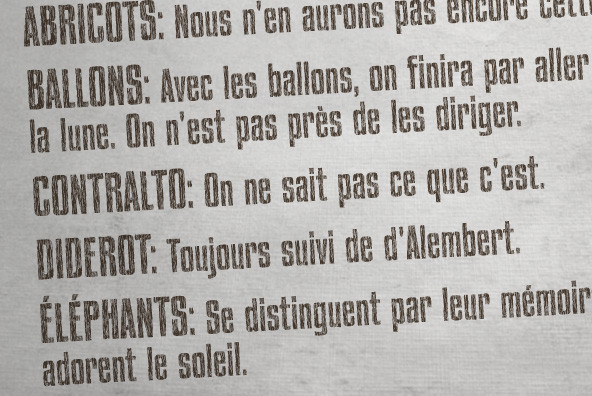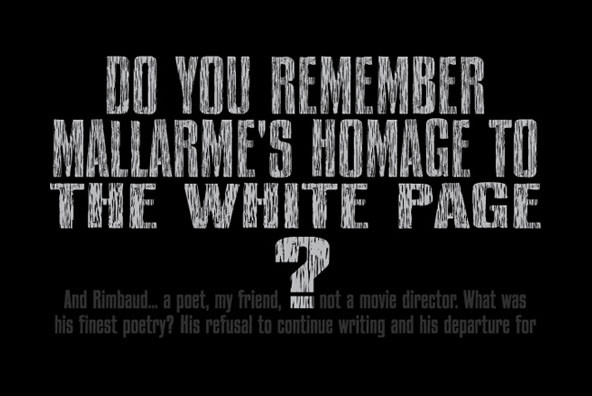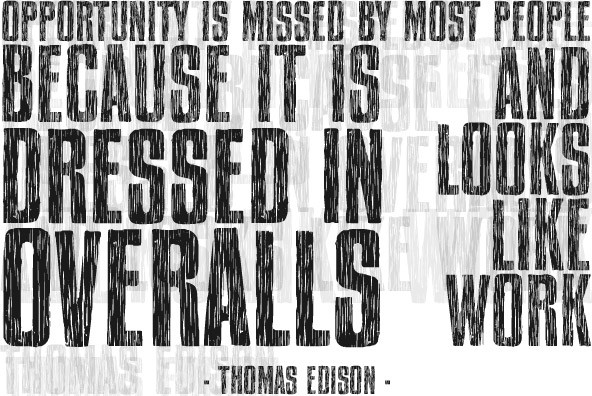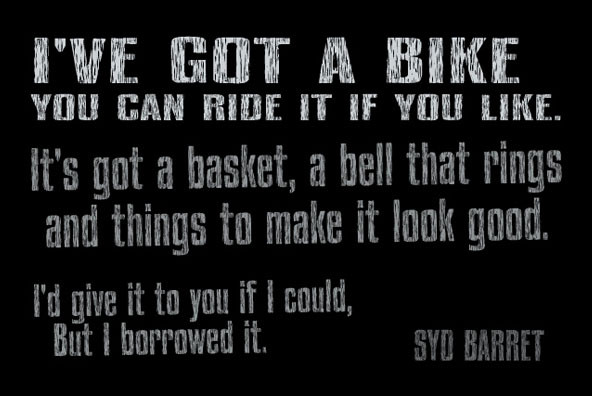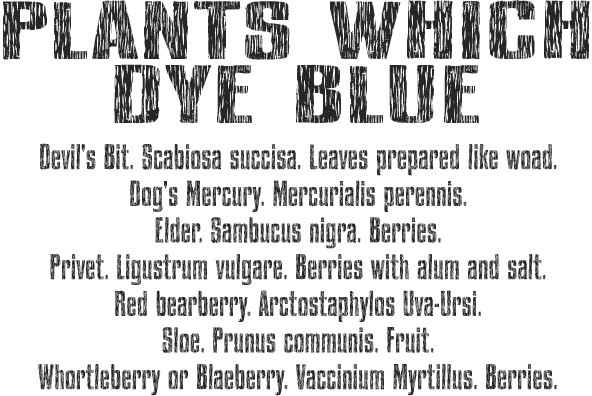
Xylo Sans
Foundry: PintassilgoPrints
Xylo Sans letterforms are based on a typeface from Miller & Richard type foundry, from circa 1911. They are presented here with a rough wood texture, in two xylographic flavors.